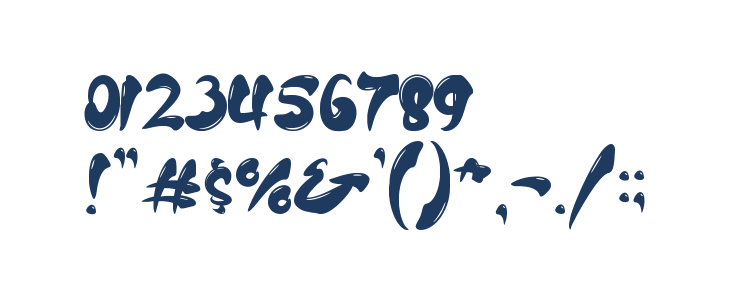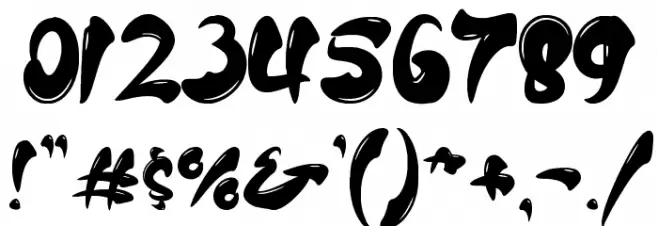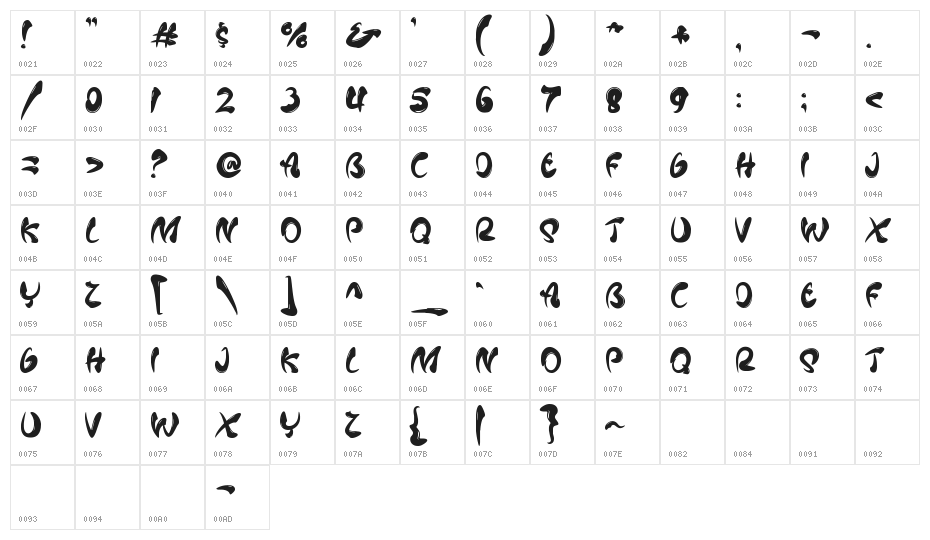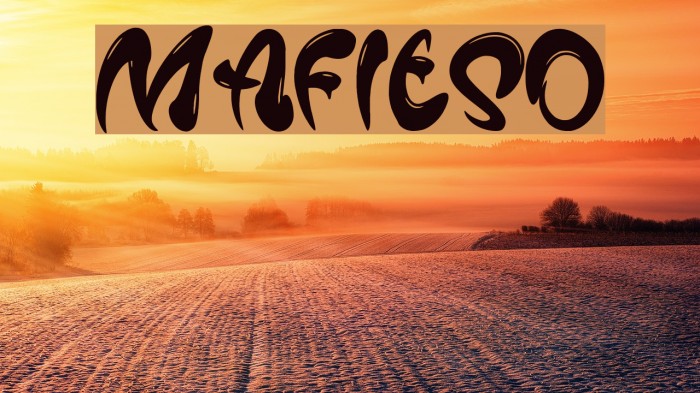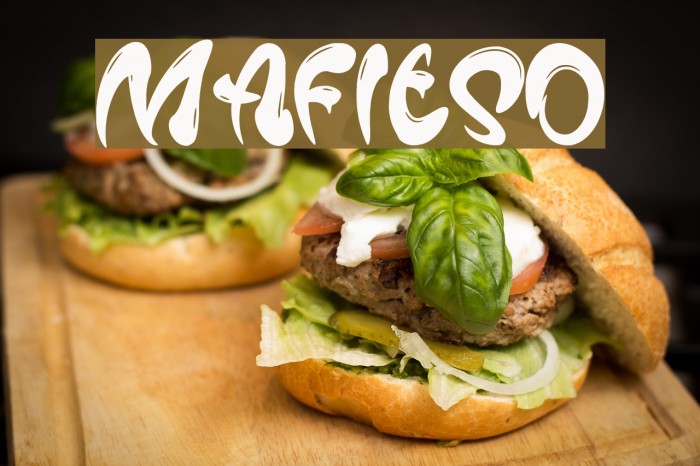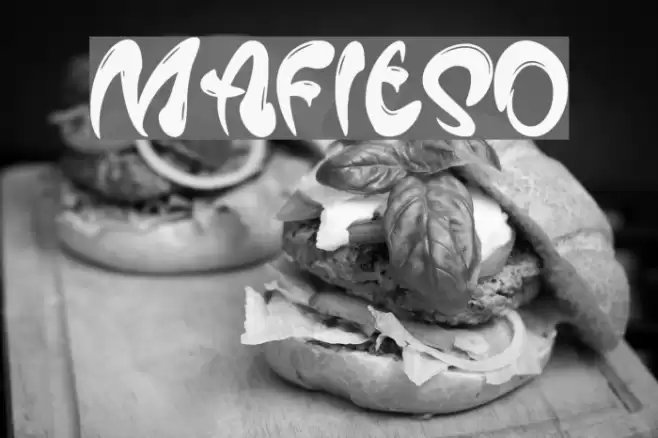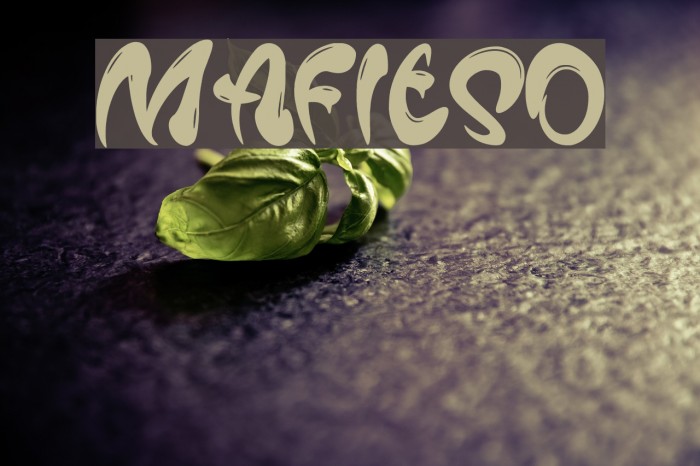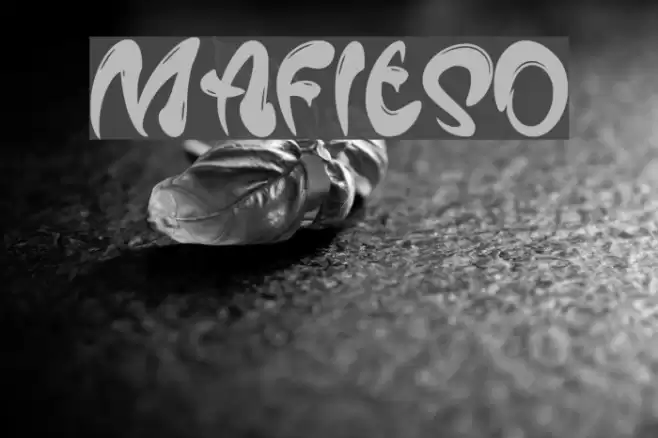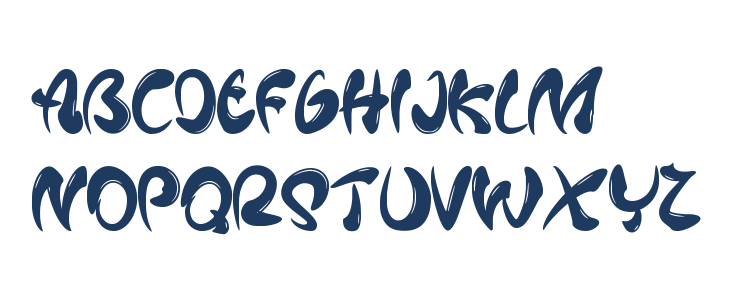
Mafieso Font
Mafieso Description
This font features a bold, expressive style with a strong presence. The characters have a dynamic, brush-like appearance, giving them a sense of movement and energy. The strokes are thick and fluid, with varying widths that create a high contrast between thick and thin areas. This adds a dramatic flair to the overall look. The font maintains a consistent flow, with each letter seamlessly connecting to the next, making it ideal for creating impactful and eye-catching designs. The unique style of the characters makes it suitable for projects that require a bold and artistic touch.
| Proposed Projects | Ideal for posters, logos, branding, and any design requiring a bold, artistic touch. |